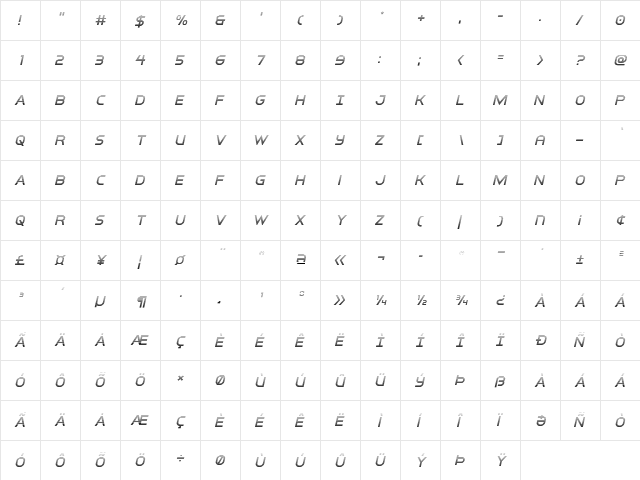
Inter-Bureau Gradient Italic Italic
Design Context for Inter-Bureau Gradient Italic Typeface
Inter-Bureau Gradient Italic takes a measured approach to typography — its balanced proportions and neutral character make it a reliable workhorse for both digital and print work. The dynamic lean of this cut emphasises speed and emphasis in any layout.
Pro Tip: Try Inter-Bureau Gradient Italic for annotation and caption copy alongside an upright companion — the contrast in angle creates a dynamic but ordered typographic system.